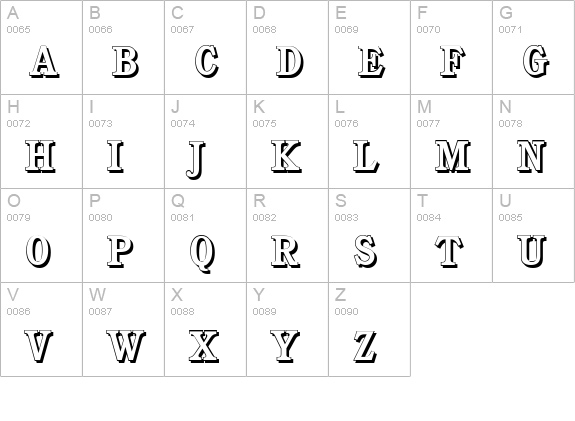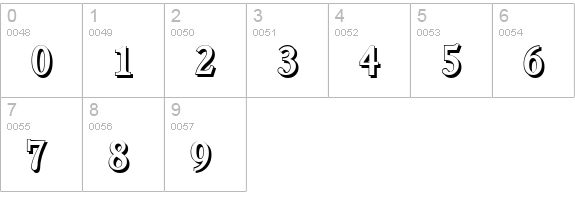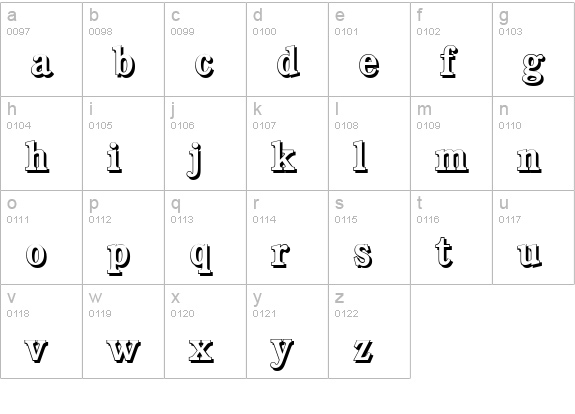
CalgaryShadow-Medium-Regular Font Details
CalgaryShadow-Medium-Regular is a balanced, medium-weight variant in the CalgaryShadow typeface family \xE2\x80\x94 well suited to sub-headlines, navigation, and balanced editorial work.
CalgaryShadow-Medium-Regular font is a striking and versatile typeface that exudes a sense of modern elegance with a touch of vintage charm. Its medium weight strikes the perfect balance between boldness and readability, making it ideal for a wide range of design projects. This font features unique shadow effects that add depth and dimension to your text, helping it stand out in any layout or composition. The clean lines and sharp edges give CalgaryShadow-Medium-Regular a polished and professional look, making it a great choice for logos, headers, branding materials, and more. Best of all, CalgaryShadow-Medium-Regular font is completely free to download at FontsMarket.com. With just a few clicks, you can add this stylish and eye-catching font to your collection without breaking the bank. Whether you're a seasoned designer or just starting out, CalgaryShadow-Medium-Regular is sure to elevate your projects and make a lasting impression.